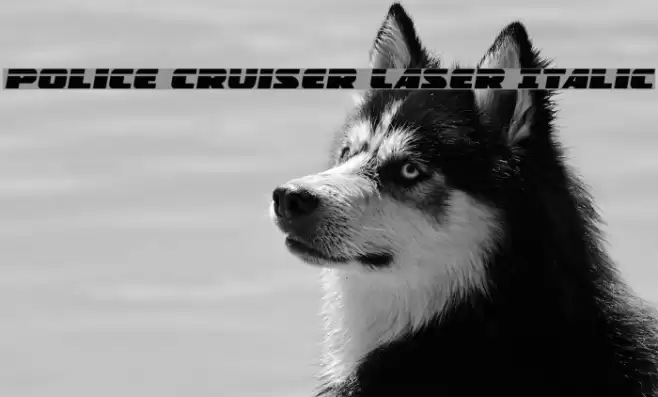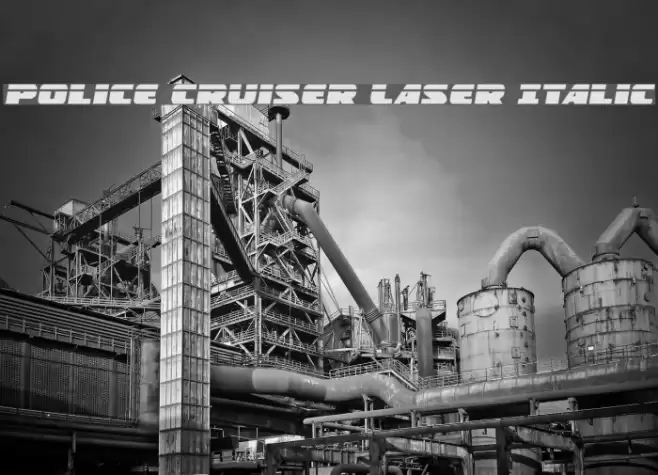
Police Cruiser Laser Italic Font
Police Cruiser Laser Italic Description
This font features a bold and dynamic style with a futuristic and angular design. The characters are italicized, giving a sense of motion and speed. The uppercase letters are prominent and wide, while the lowercase letters maintain the same boldness, creating a cohesive look. The numbers and special characters follow the same design principles, ensuring consistency across all elements. The font's geometric shapes and sharp edges make it stand out, ideal for projects that require a modern and edgy aesthetic.
A bold, italicized font with a futuristic and angular design from Uncategorized fonts.
- Proposed Projects: Ideal for use in sci-fi themed projects, video game titles, automotive branding, or any design that requires a modern and dynamic look.
- Width: Expanded